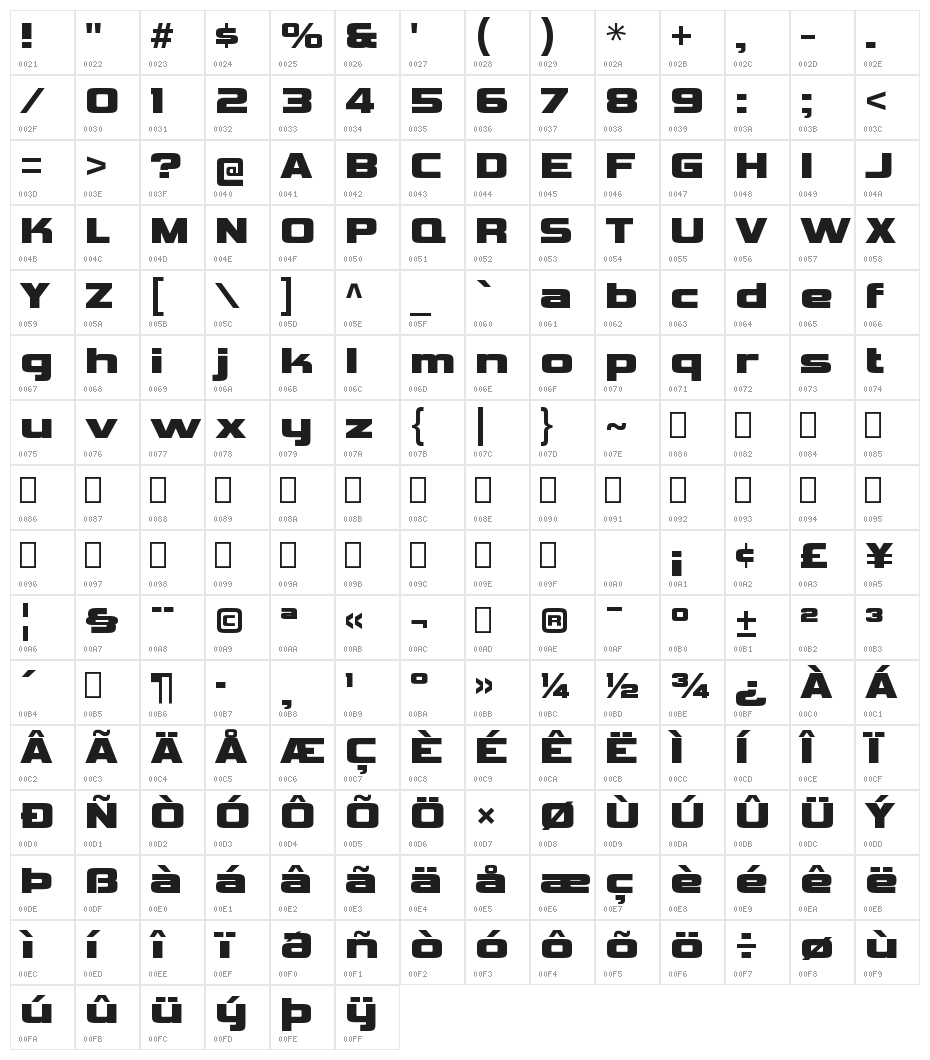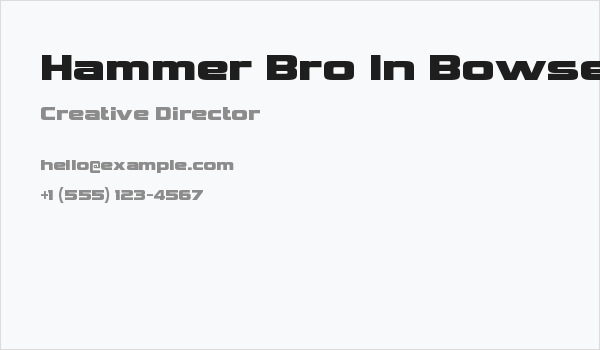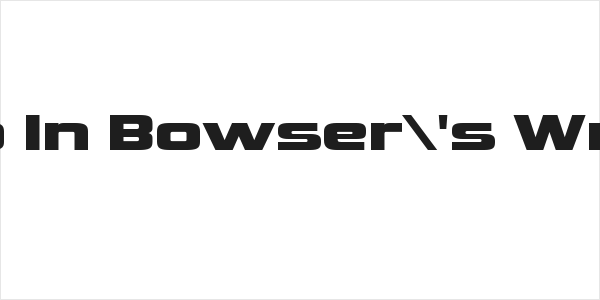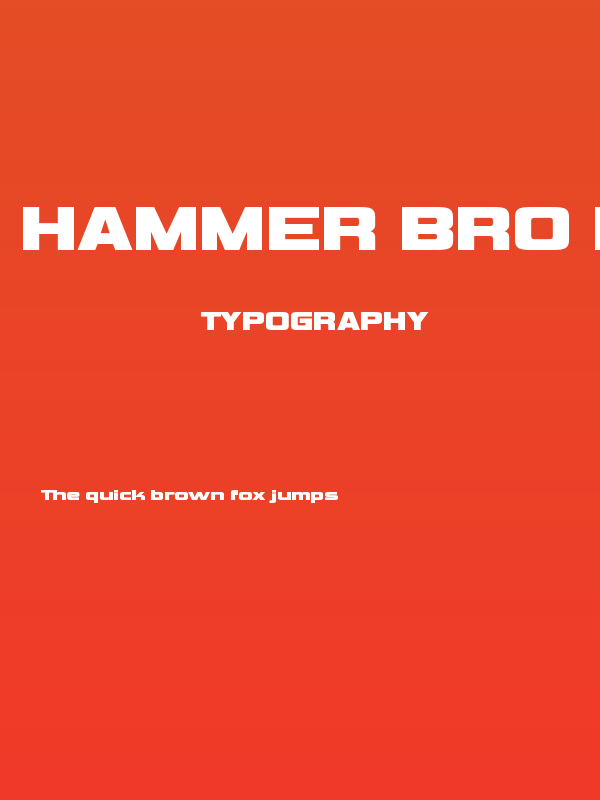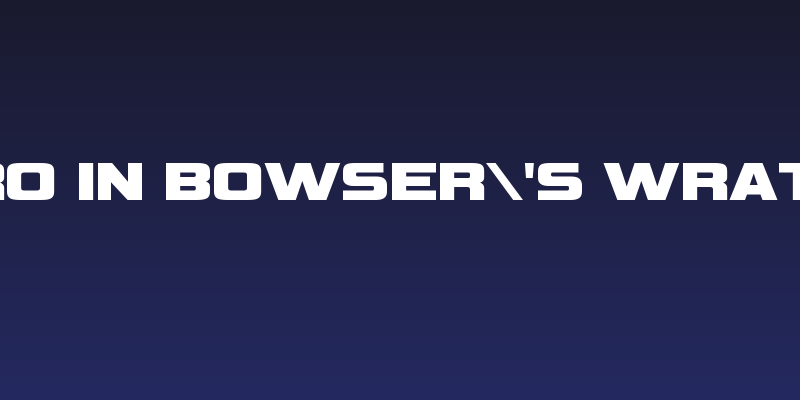
Hammer Bro In Bowser's Wrath Regular Font
Hammer Bro In Bowser's Wrath Regular Description
This font features a bold and assertive style, characterized by thick, block-like letterforms that convey strength and impact. The uppercase letters are particularly wide and commanding, while the lowercase letters maintain a consistent weight and structure, ensuring readability. The numerals and special characters are designed to match the robust aesthetic, making them suitable for attention-grabbing displays. The overall design is modern and clean, with a slight futuristic edge, making it versatile for various design applications.
| Proposed Projects | Ideal for use in headlines, posters, branding, and any project requiring a strong visual impact. |